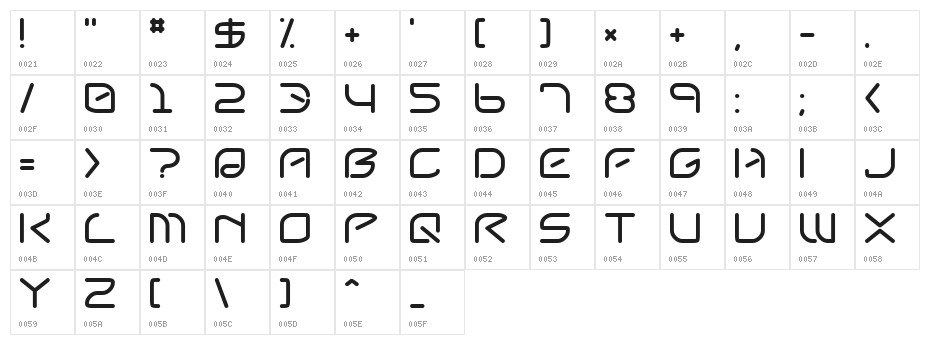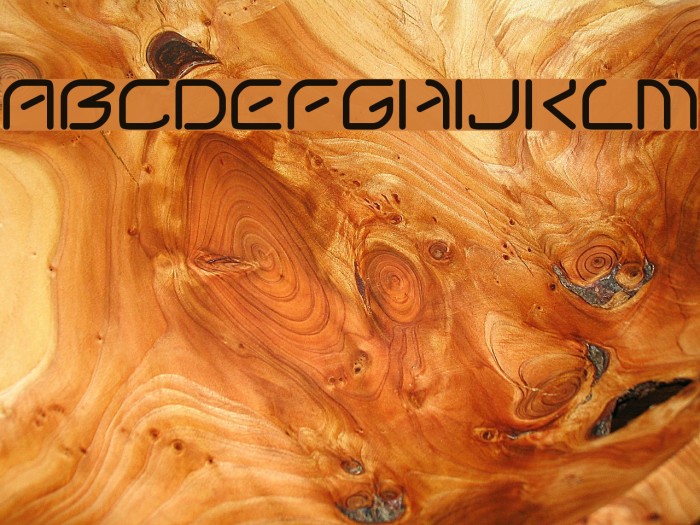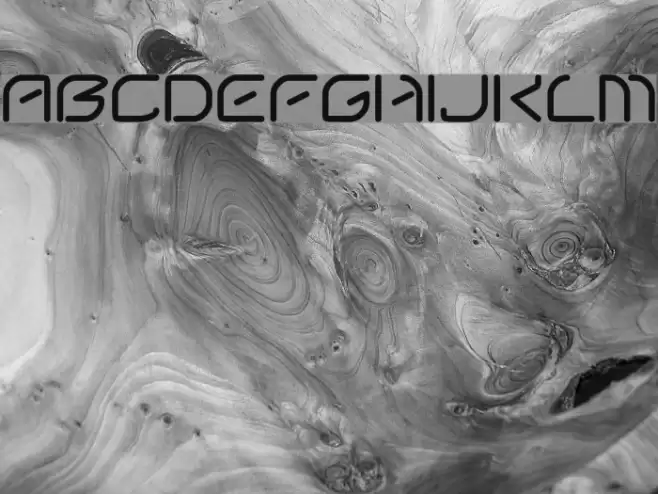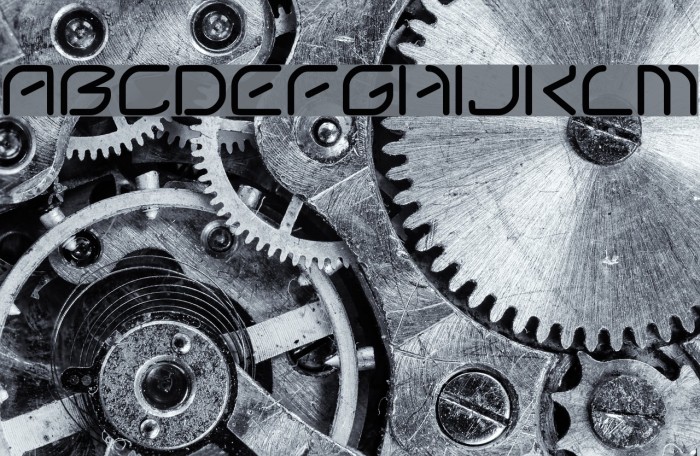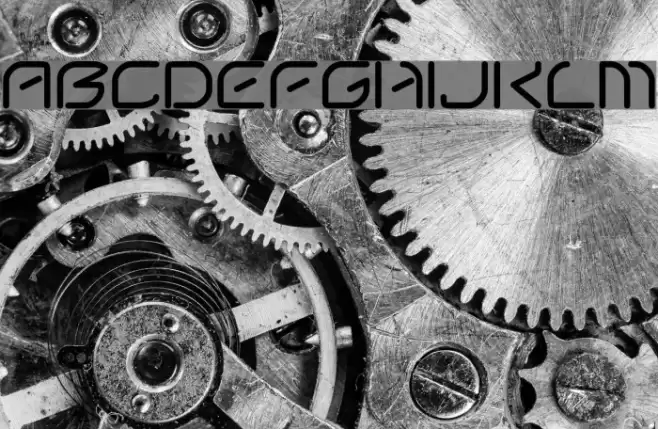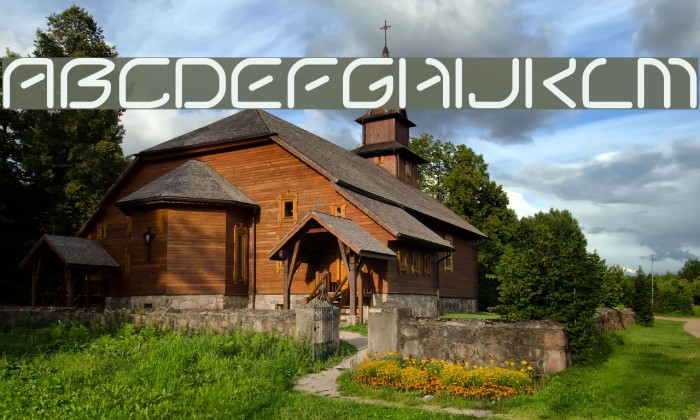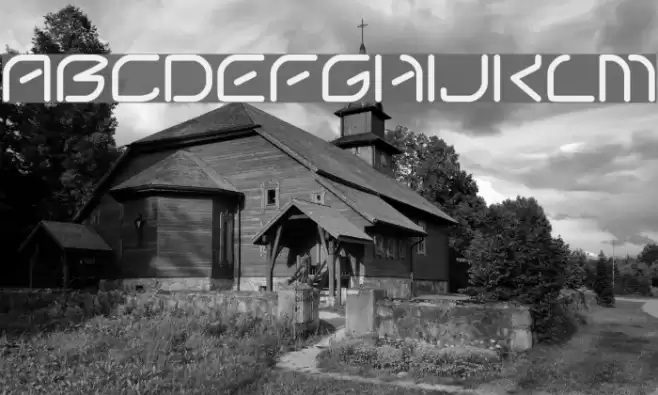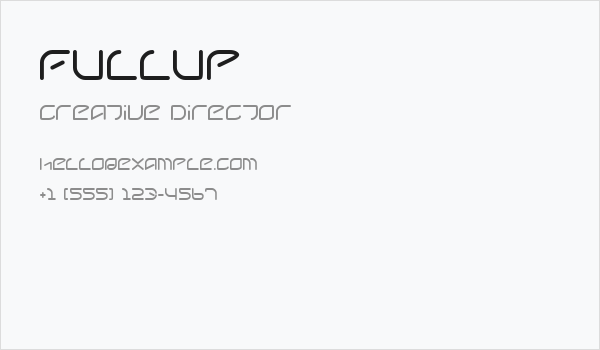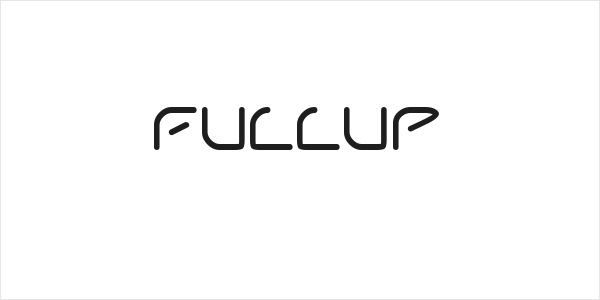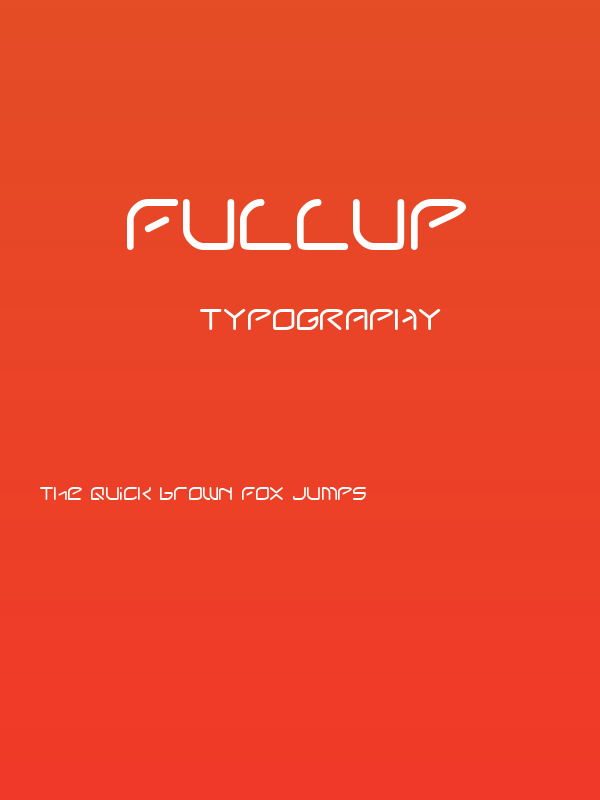
fullup Font
fullup Description
This font features a modern, futuristic design with rounded edges and a geometric structure. The characters are uniform in height, creating a cohesive and streamlined appearance. The uppercase and lowercase letters maintain a consistent style, with smooth curves and minimalistic forms. The numbers and special characters follow the same design principles, ensuring a harmonious look across all elements. The font's clean lines and open shapes make it highly legible, even at smaller sizes. Its unique style is both eye-catching and versatile, suitable for a variety of design applications.
| Use Case | Logos, Headlines, Digital interfaces |
| Proposed Projects | Ideal for tech branding, sci-fi themed projects, modern advertising, and digital interfaces. |